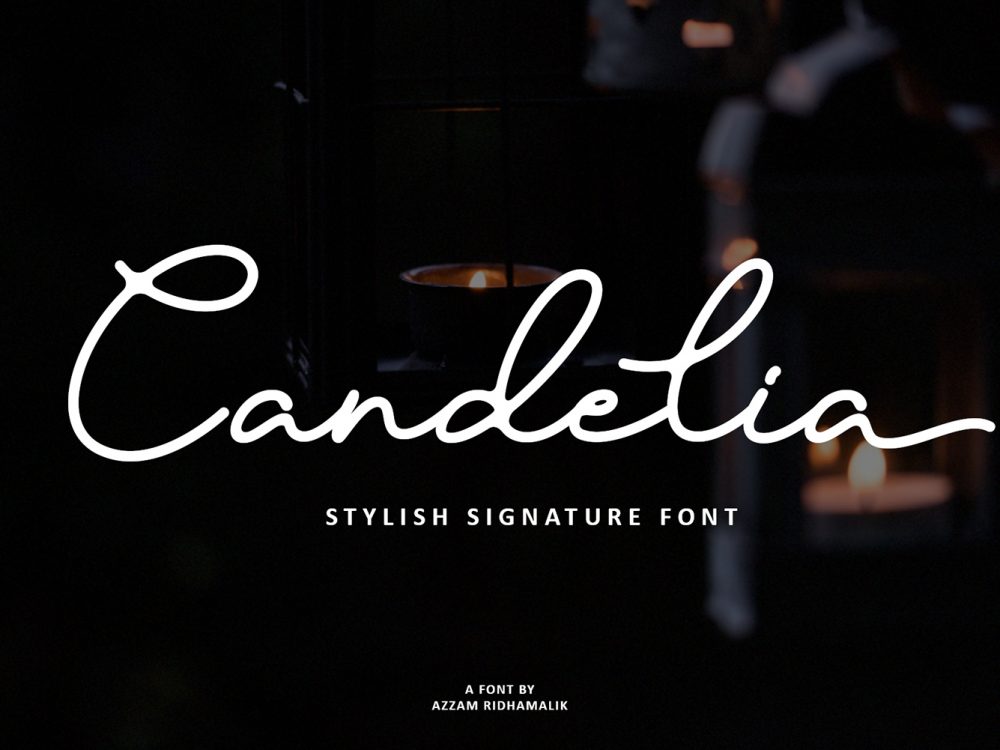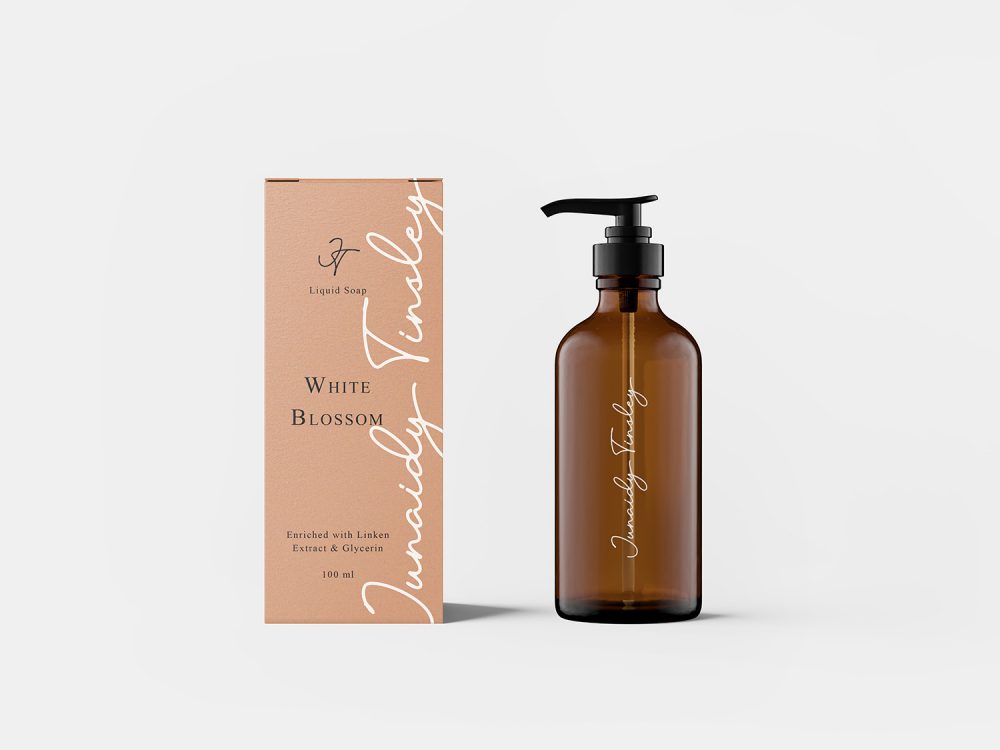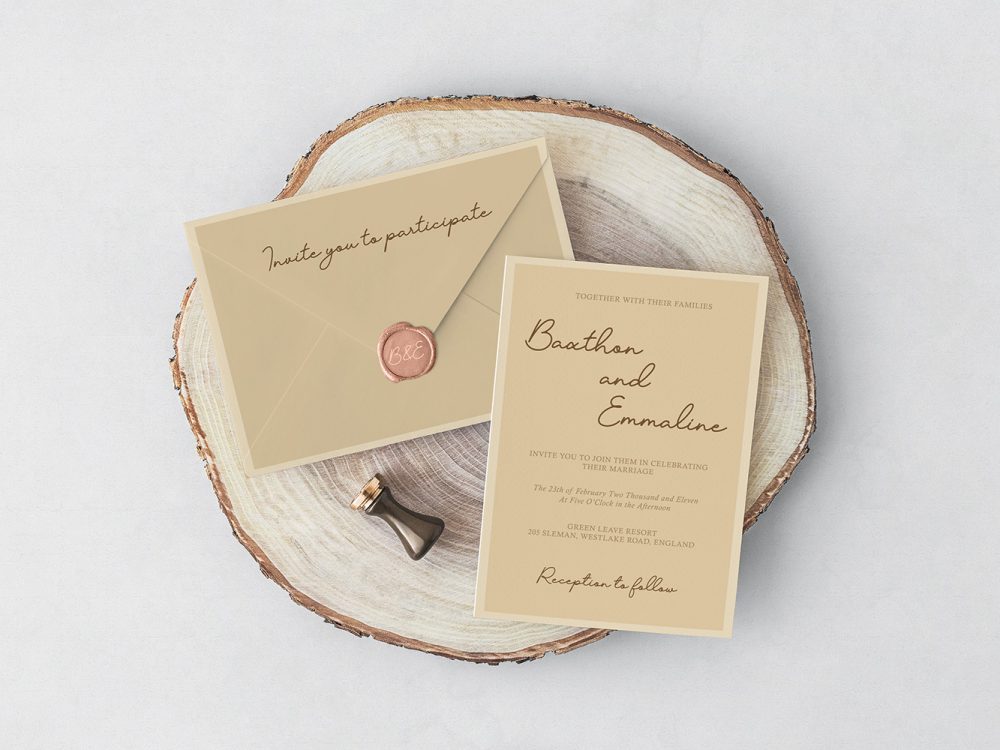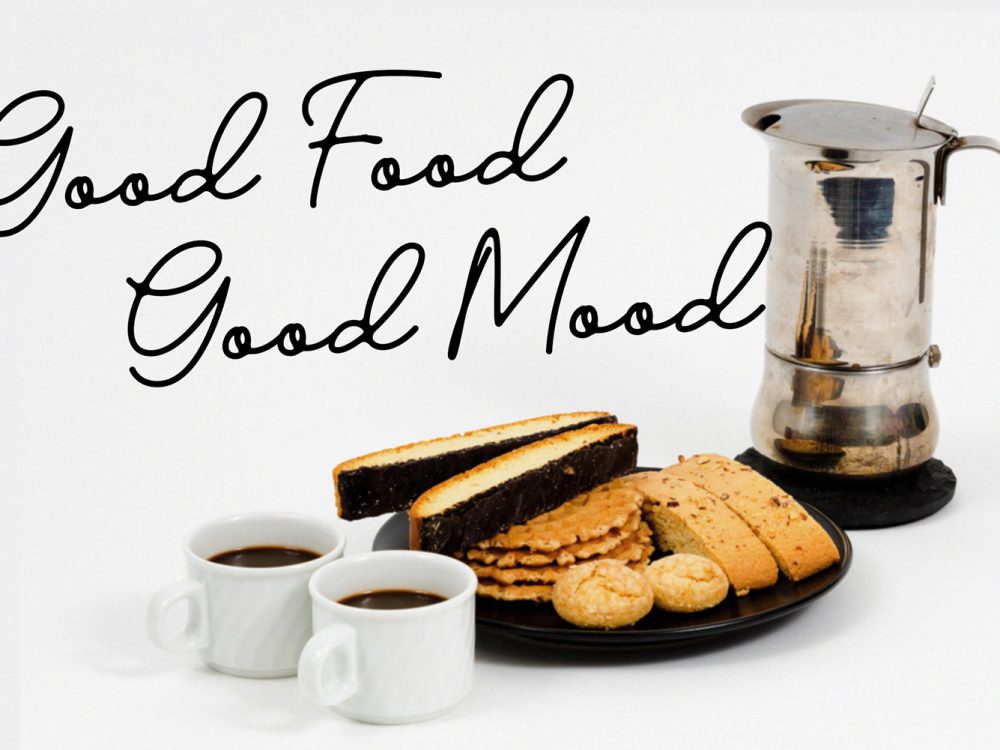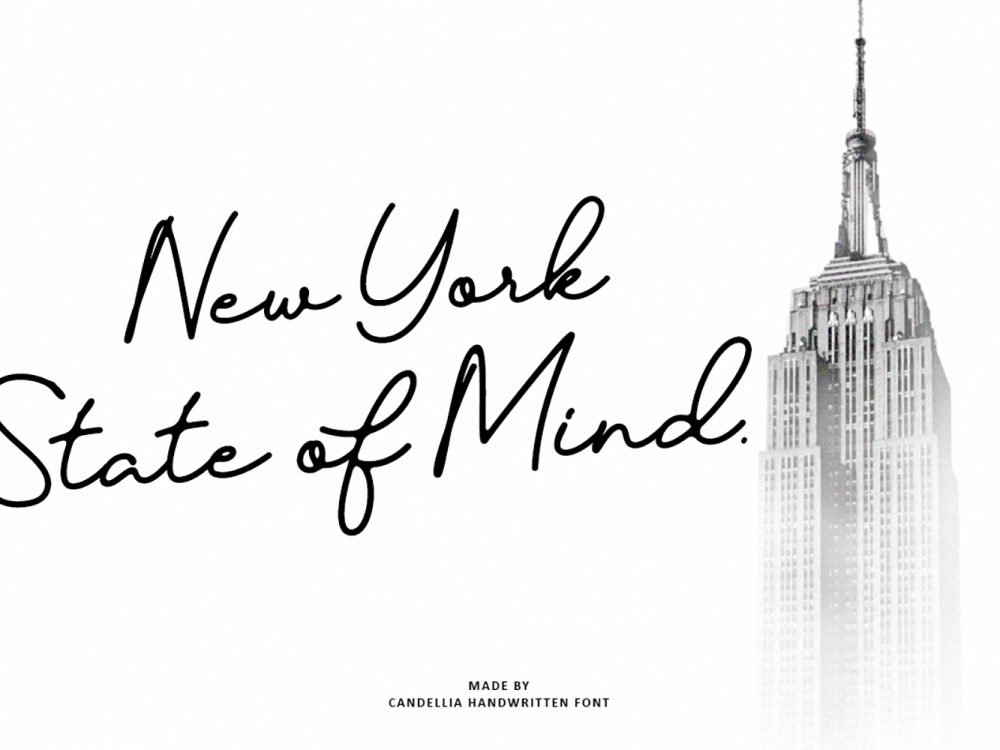
Candelia Free Font
Candelia Free Font is a stylish modern scripted handwritten font that will help you create unique design projects and improve your professional level. Use this font to create memorable posters, wedding invitations, cards, branding, flyers, and more. Improve the quality and increase the popularity of your design projects using this font. If you like it don’t forget to check out the full version.